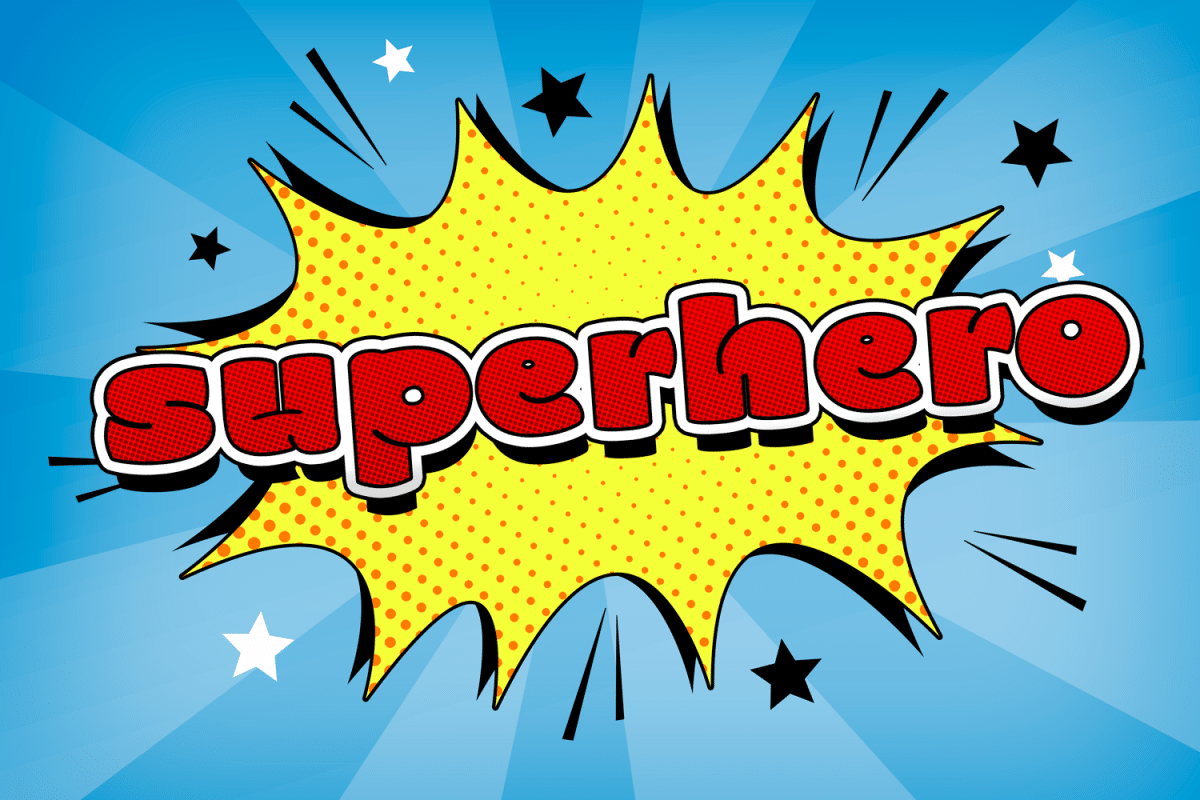
Karen Font Inspired by the 90’s playful cartoon & comic books. It will add an incredibly joyful touch to your designs.
This font can be used for modern and vintage designs, also can be easily paired with some graphic elements (Illustration, Photography) this font perfect for, Logotype, Branding, Title, and Packaging.